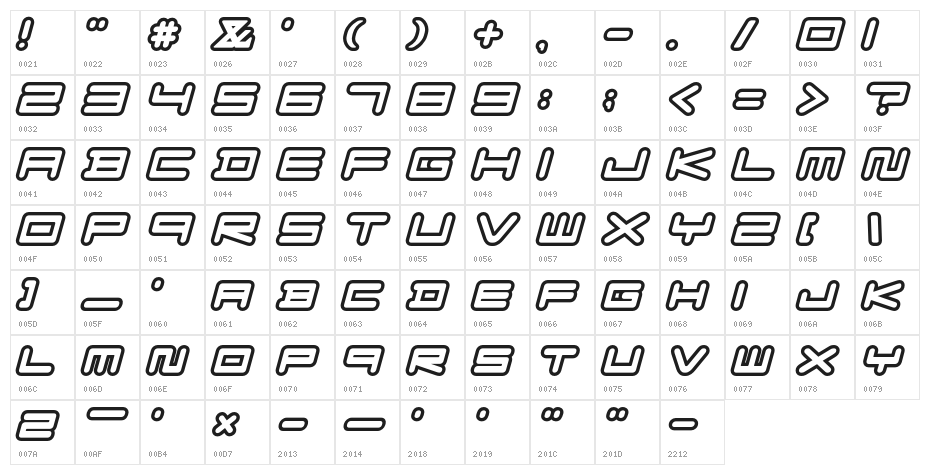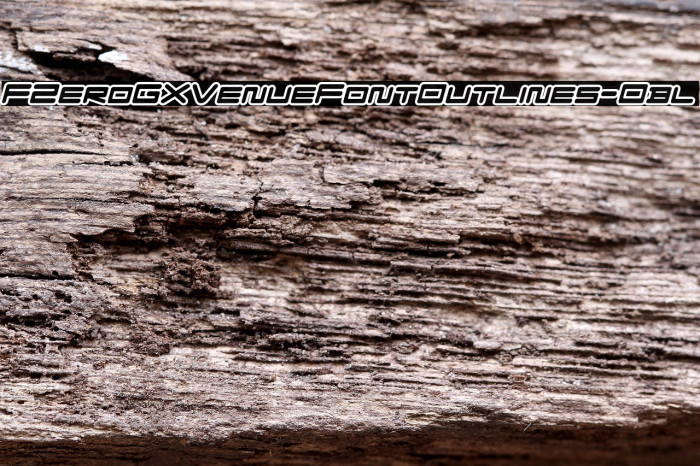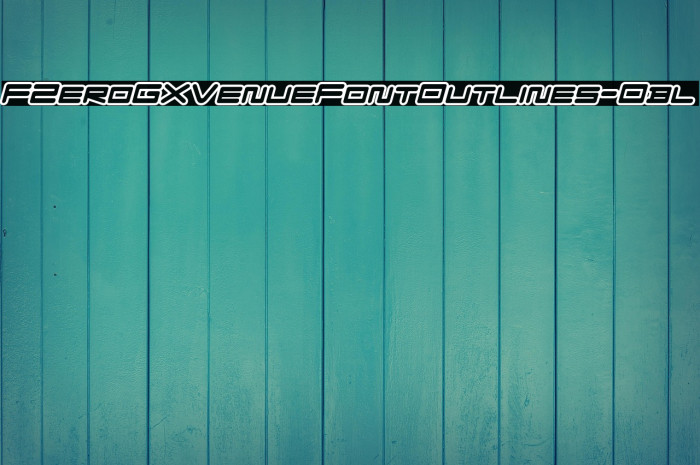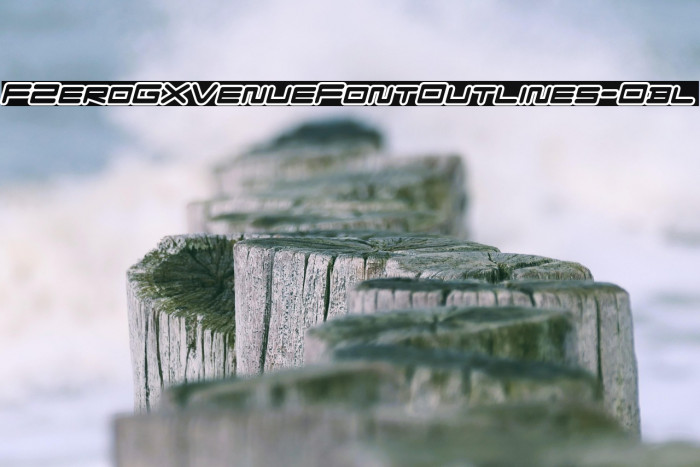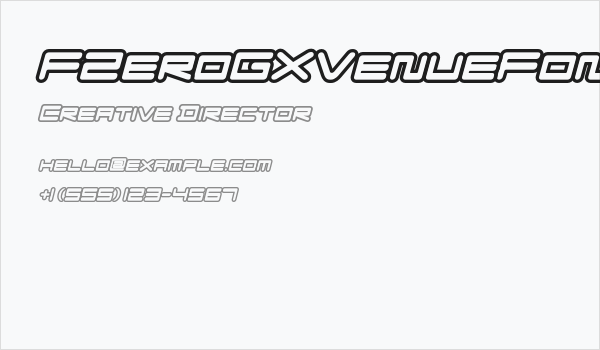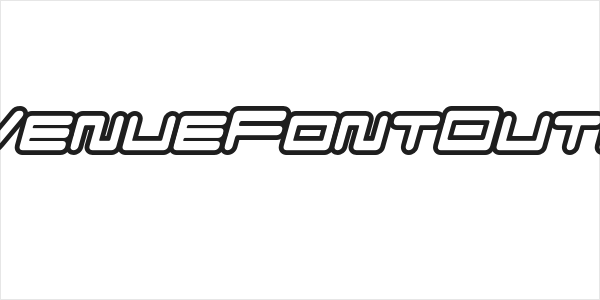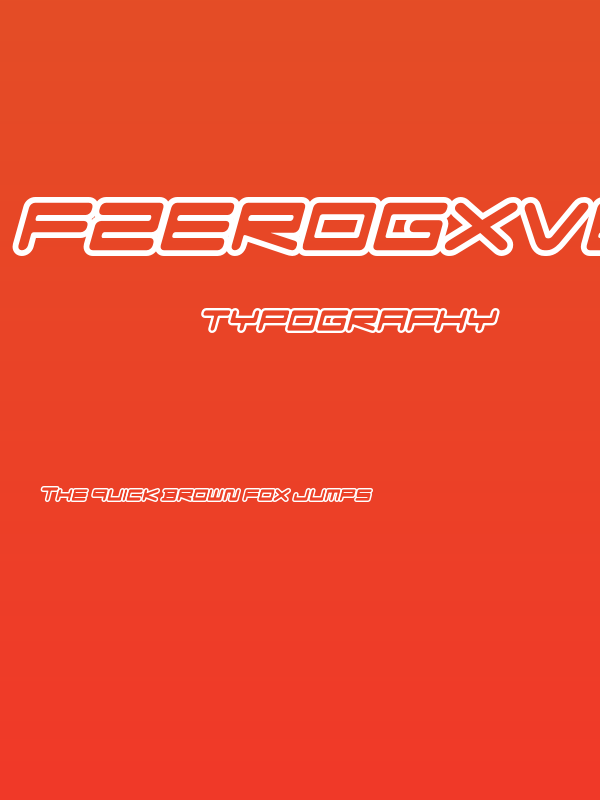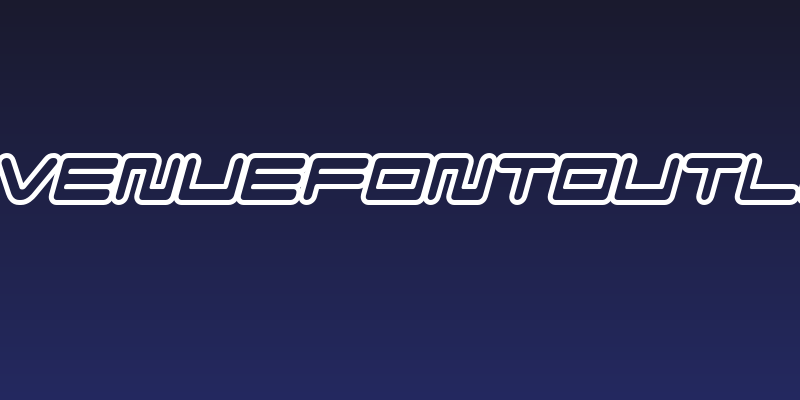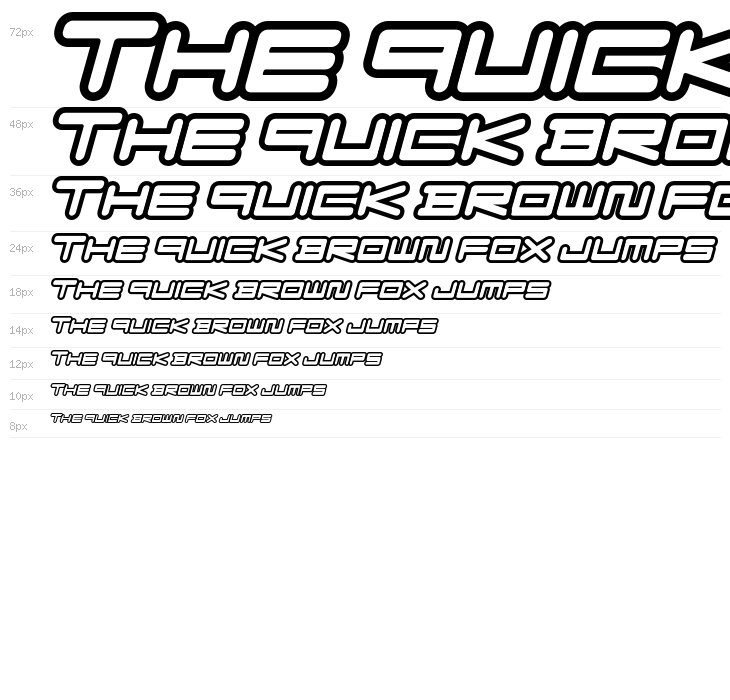
FZeroGXVenueFontOutlines-Obl Font
FZeroGXVenueFontOutlines-Obl Description
This font features a futuristic and dynamic design, characterized by bold, outlined characters with a distinct geometric style. The uppercase and lowercase letters share a consistent aesthetic, emphasizing a sleek and modern appearance. The numbers and special characters maintain this cohesive look, making the font suitable for digital and tech-oriented projects. The overall design is clean and impactful, with a strong presence that captures attention.
| Proposed Projects | Ideal for video game titles, tech branding, digital interfaces, and sci-fi themed designs. |